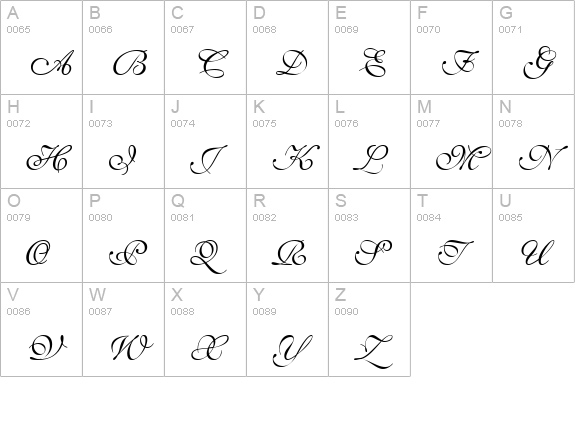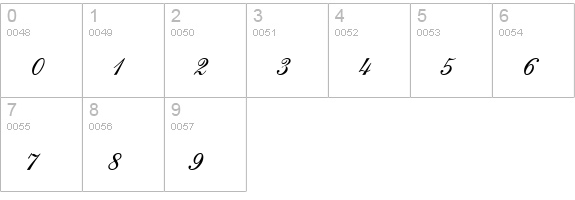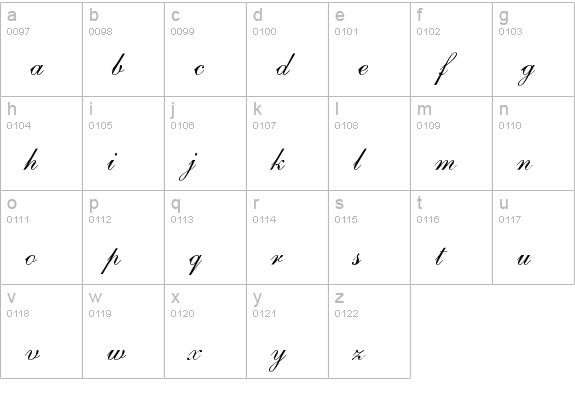
GE Sheer Script Font Details
GE Sheer Script font is a beautiful and elegant script typeface that exudes sophistication and charm. Its flowing lines and graceful curves make it perfect for adding a touch of luxury to any design project. Designed with a modern twist on classic calligraphy, this font is versatile and can be used for a wide range of applications, from branding to wedding invitations. And the best part? GE Sheer Script font is available for free download at FontsMarket.com. Whether you're a designer looking for a new script font to add to your collection or someone in need of a stylish typeface for a special project, GE Sheer Script font is the perfect choice. Don't miss out on the opportunity to enhance your designs with this stunning and sophisticated font - download it for free today!